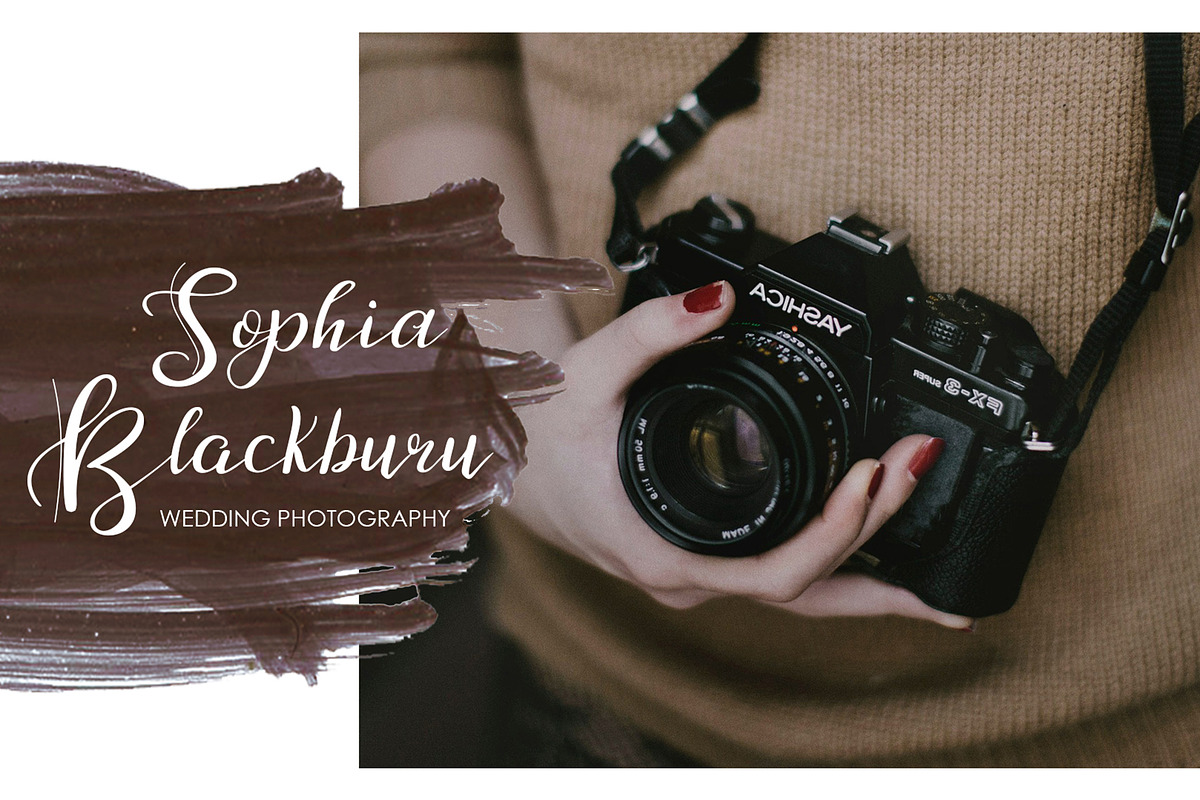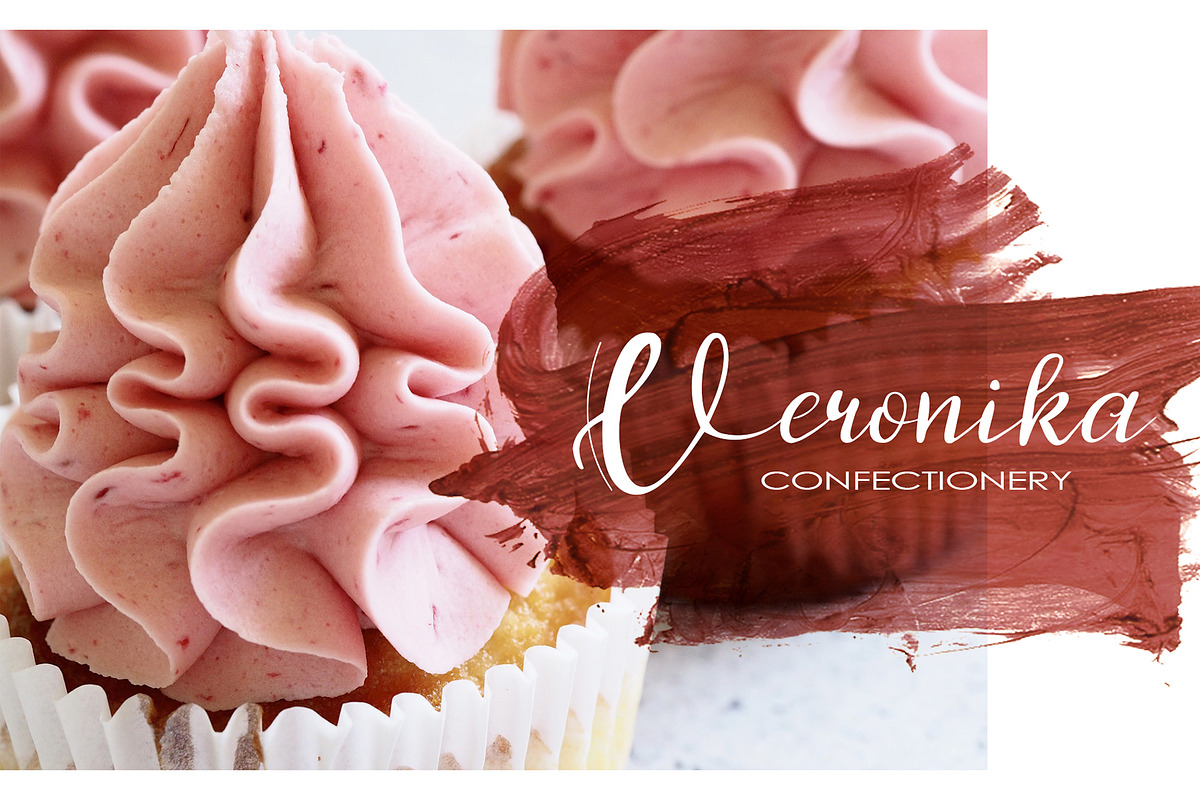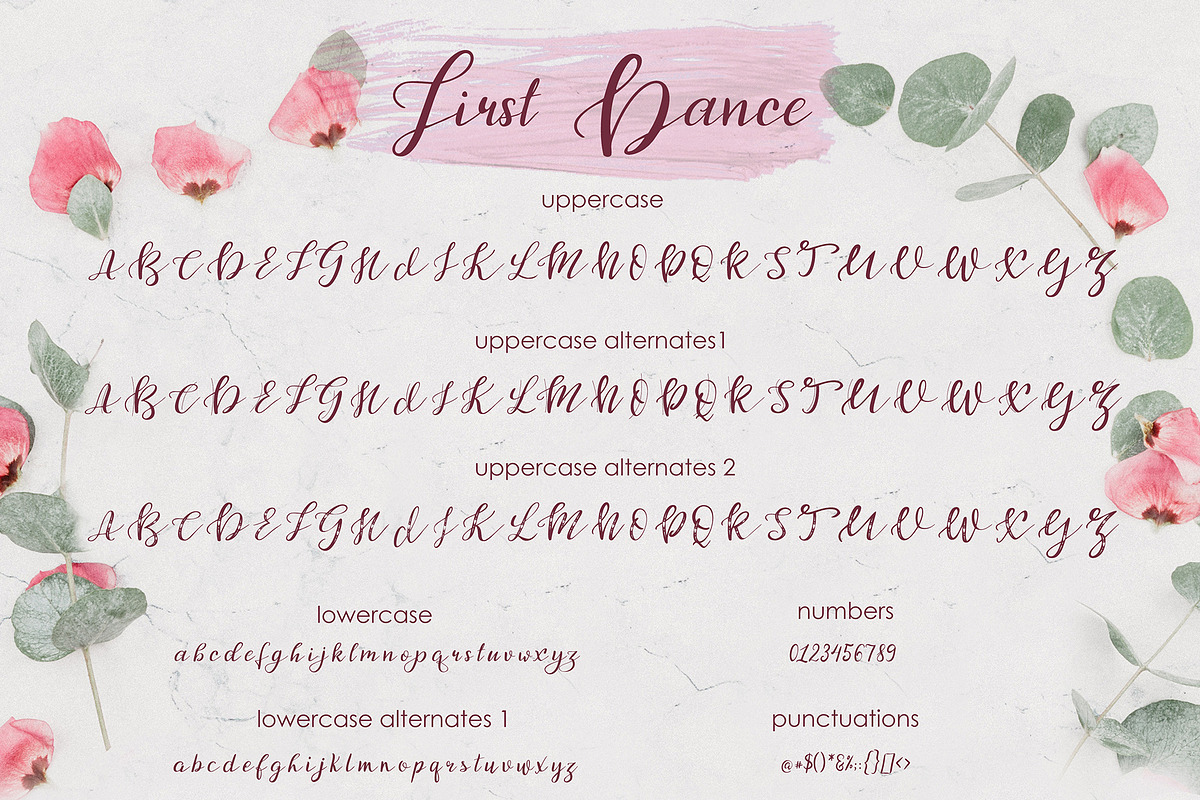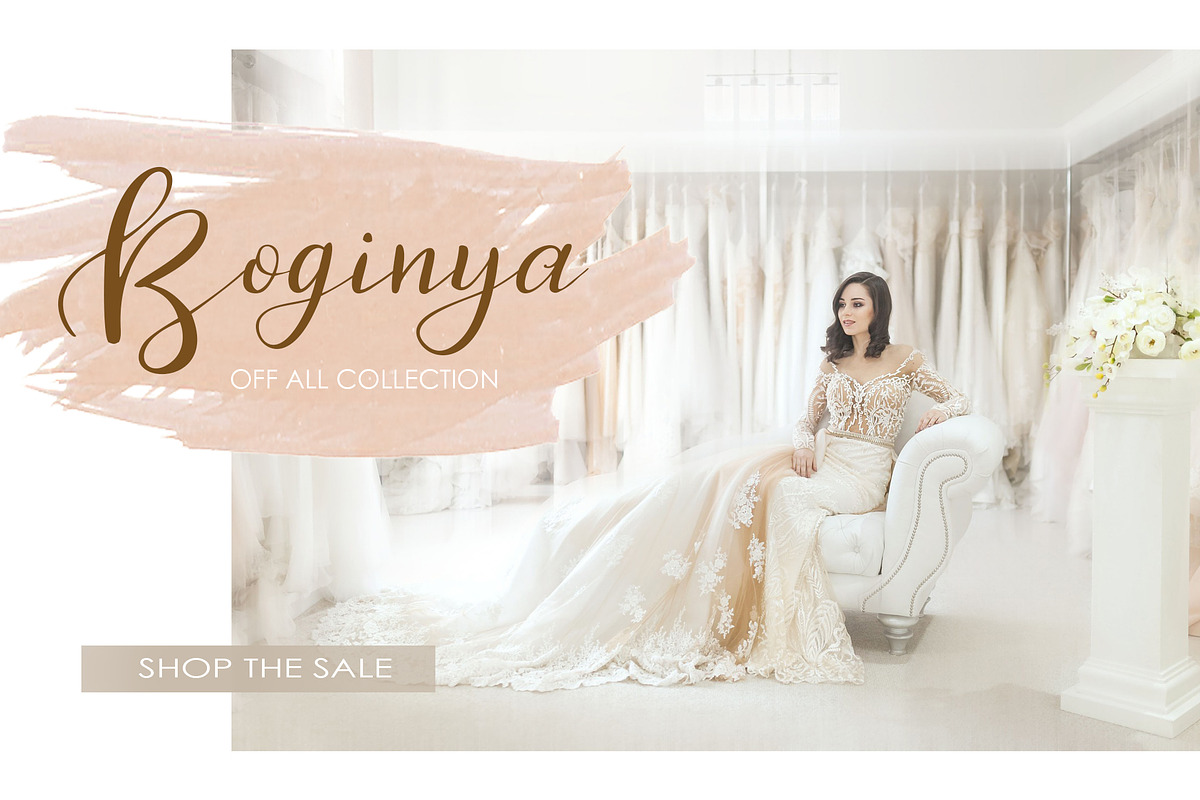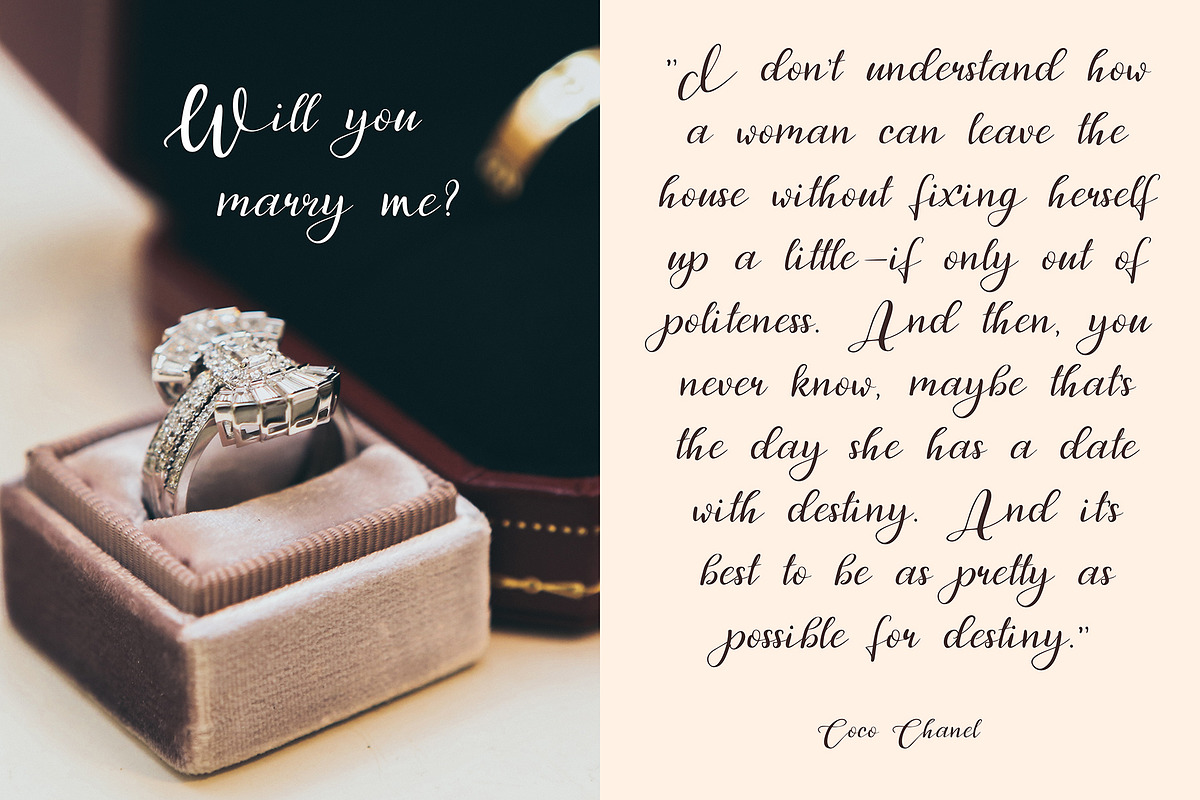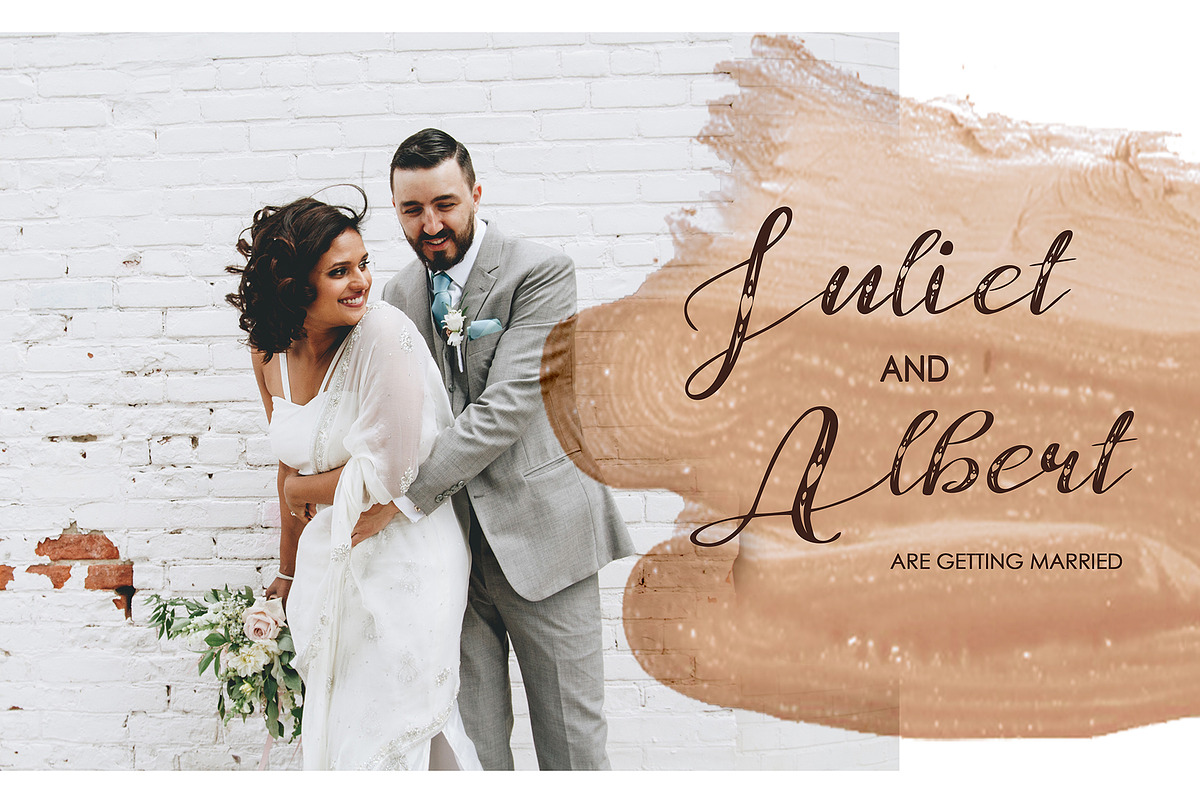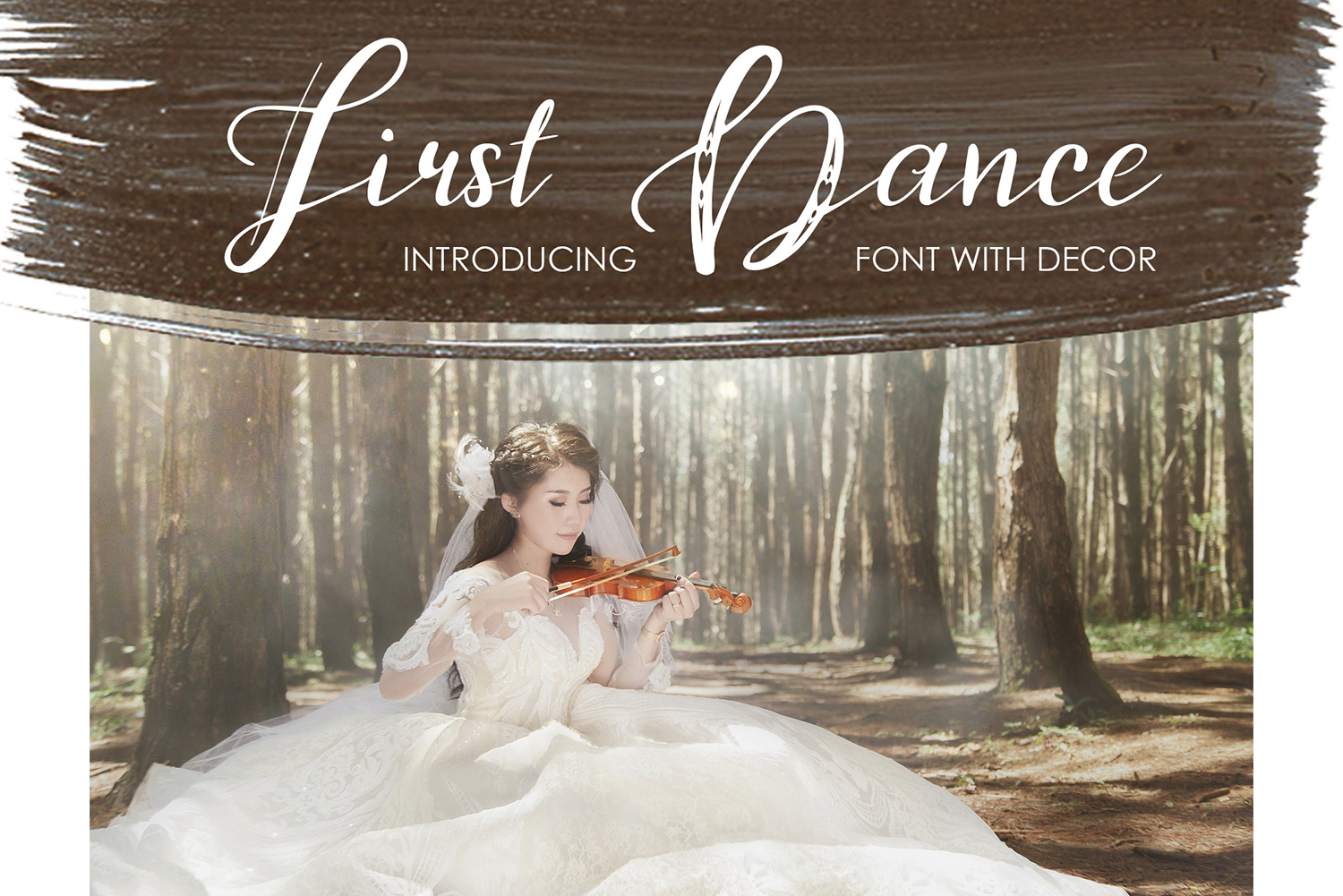
First Dance - font
I'm happy to introduce you a First Dance is a modern brush font.
This font can be used easily and simply because there are a lot of features in it to contain a complete set of letters lower and uppercase letters, assorted punctuation, numbers, and multilingual support.These characters are accessible via software with a glyphs panel.
Simply First Dance makes custom lettering a dream thanks to all the little extra decorative options you can include for a pretty and unique customisation.
Perfect for greetings, branding, prints, invitations, and crafting, print, t-shirt design, to personalised logos, handwritten quotes and so much more!